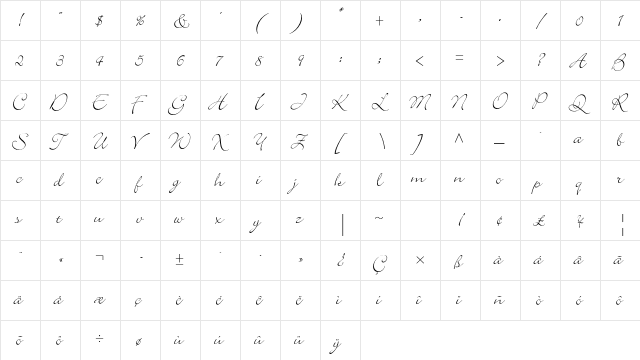
Bickley Script Std Regular
| Designer | Alan Meeks |
Design Context for Bickley Script Std Typeface
Bickley Script Std flows with the natural rhythm of handwritten lettering, making it ideal for designs that call for warmth and personal expression.
Font Pairing: Combine Bickley Script Std with a simple geometric sans for maximum contrast — the tension between flowing curves and clean structure is a classic typographic pairing.
Pro Tip: Use Bickley Script Std for short runs of text — names, titles, or taglines. Extended body copy in script faces tires the eye quickly.